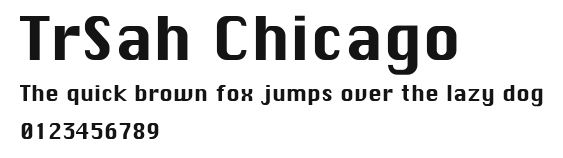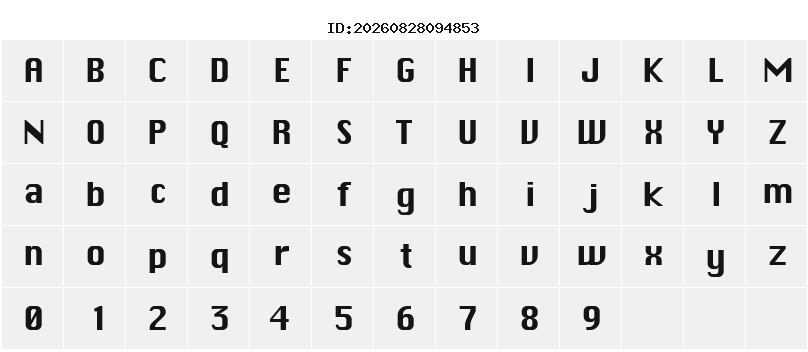
TrSah Chicago.ttf is a modern, elegant sans-serif font designed for ultimate readability and visual harmony. Perfect for branding, headlines, web design, and print materials.